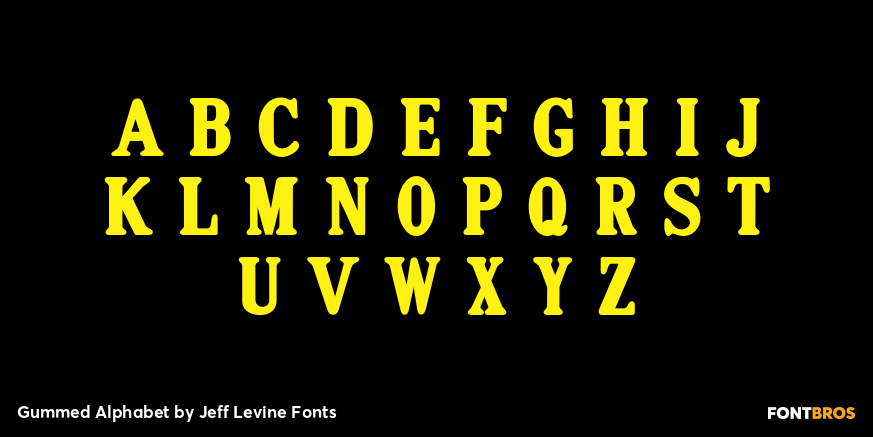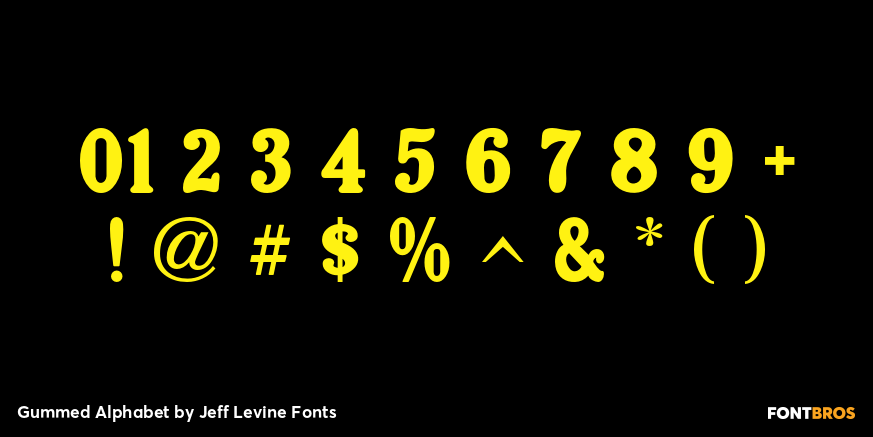
Gummed Alphabet
Gummed Alphabet JNL was modeled from a 1960s-era package of foil embossed gummed letters. This type of lettering device was sold through stationery, variety stores and similar merchants, and could be used for personalizing items or making small signs.